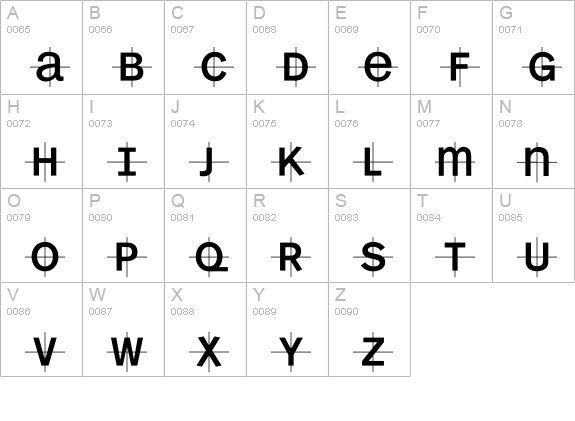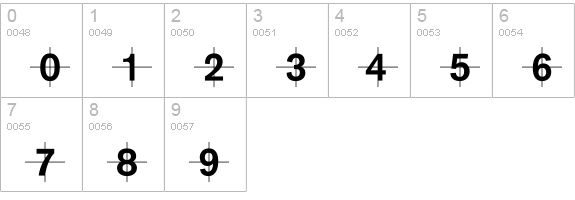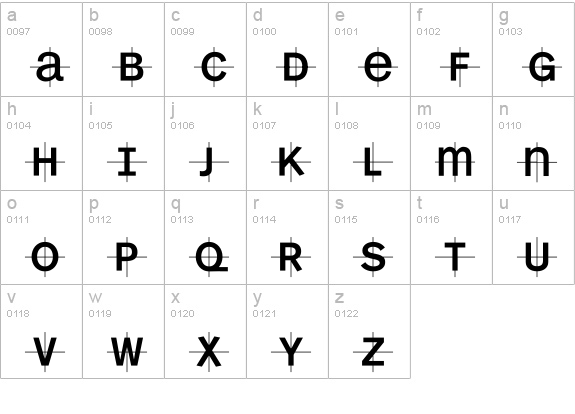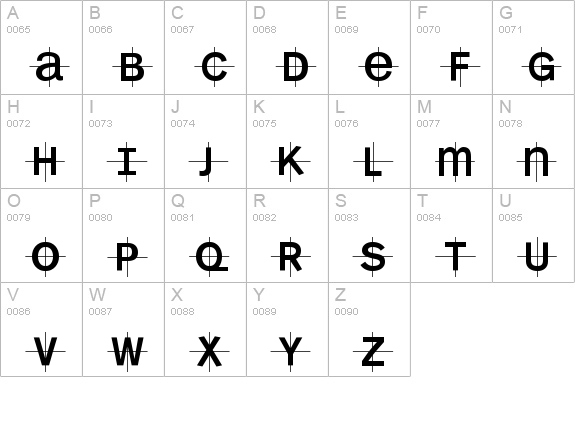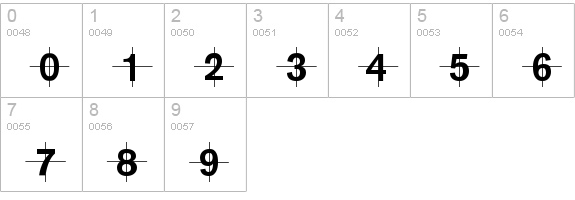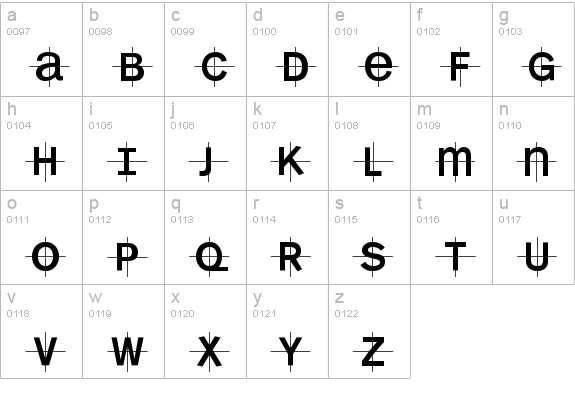
KL1MonoCase-Krux Font Details
Introducing KL1MonoCase-Krux, a captivating and visually striking font that exudes a sense of modernity and sophistication. Designed with meticulous attention to detail, this font is perfect for those seeking a bold and unique typographic solution. KL1MonoCase-Krux is characterized by its sleek and minimalist aesthetic, incorporating clean lines and sharp edges that command attention. Its monospaced structure adds a touch of elegance while ensuring optimal legibility, making it suitable for a variety of design projects, such as logos, branding, headlines, and more. What sets KL1MonoCase-Krux apart is its versatility. Whether you're aiming for a professional and corporate look or a trendy and urban feel, this font effortlessly adapts to meet your specific needs. Its bold and confident presence on any medium will make a lasting impression on your audience. And the best part? KL1MonoCase-Krux is freely available to download at FontsMarket.com, allowing you to add this exceptional font to your collection without breaking the bank. With just a few clicks, you can elevate your designs to new heights, all while enjoying the flexibility and convenience of a free resource. So why wait? Embrace the power and allure of KL1MonoCase-Krux, and let your creativity shine with this remarkable font. Download it today at FontsMarket.com and unlock a world of possibilities for your design projects.